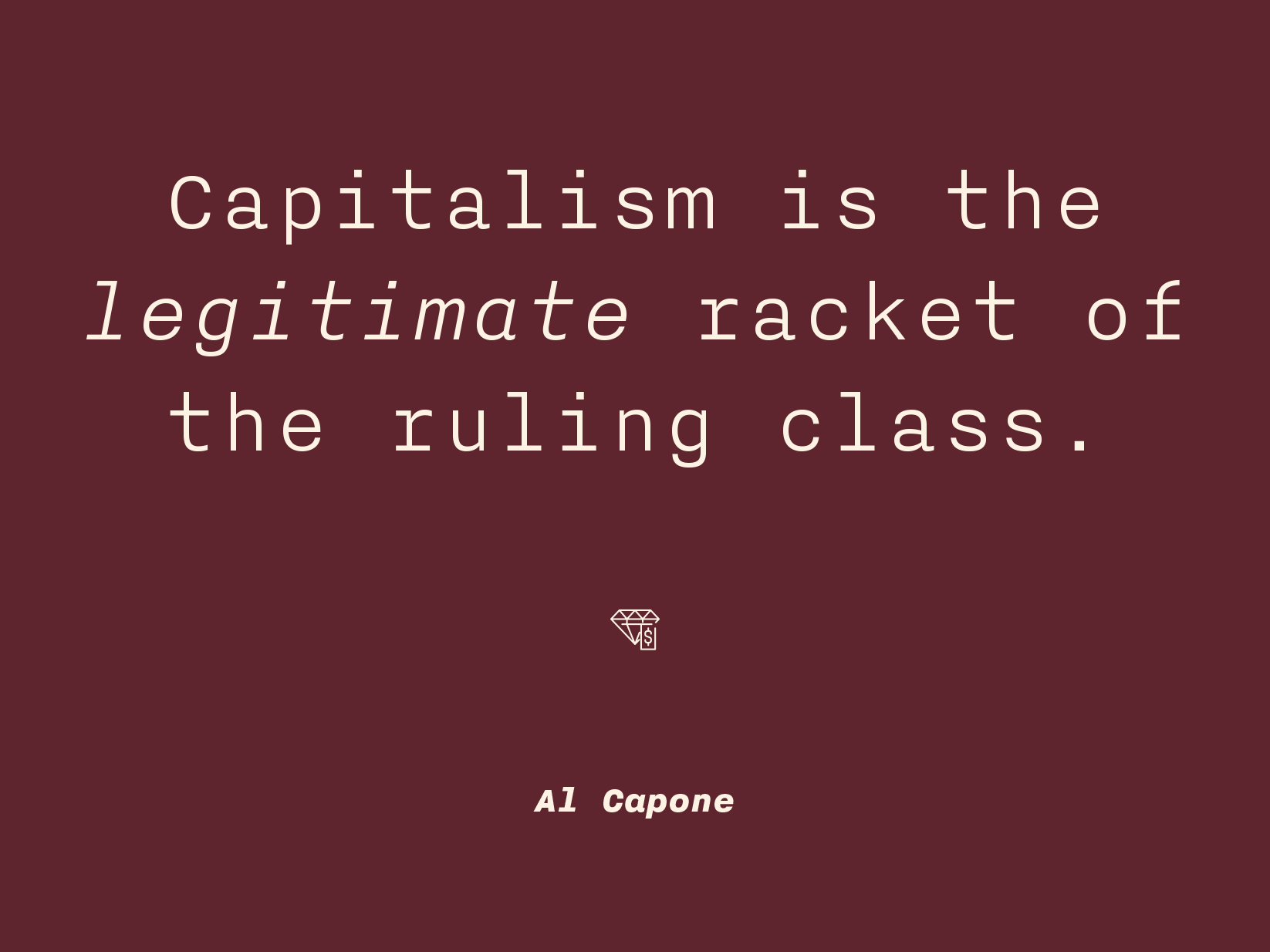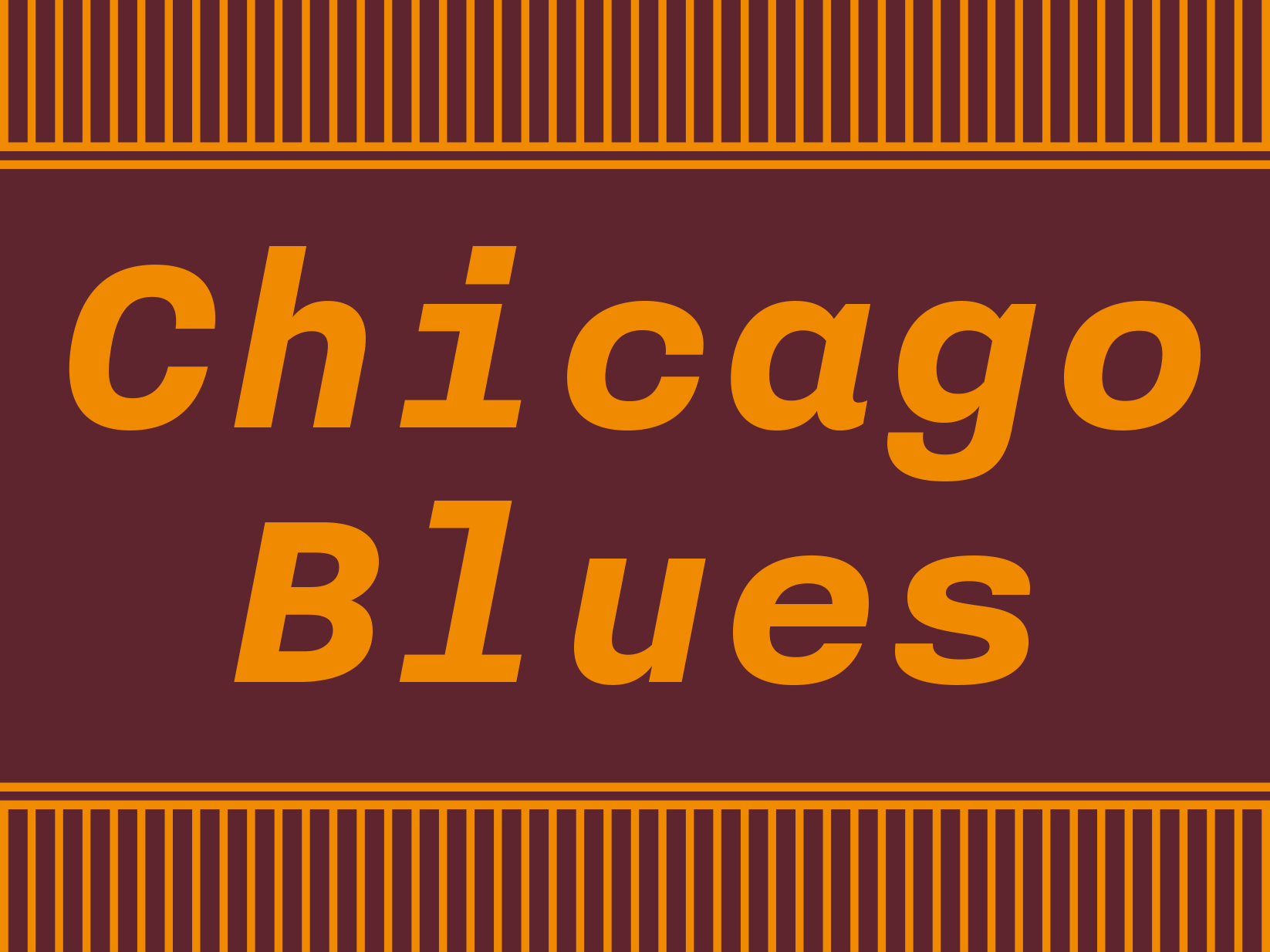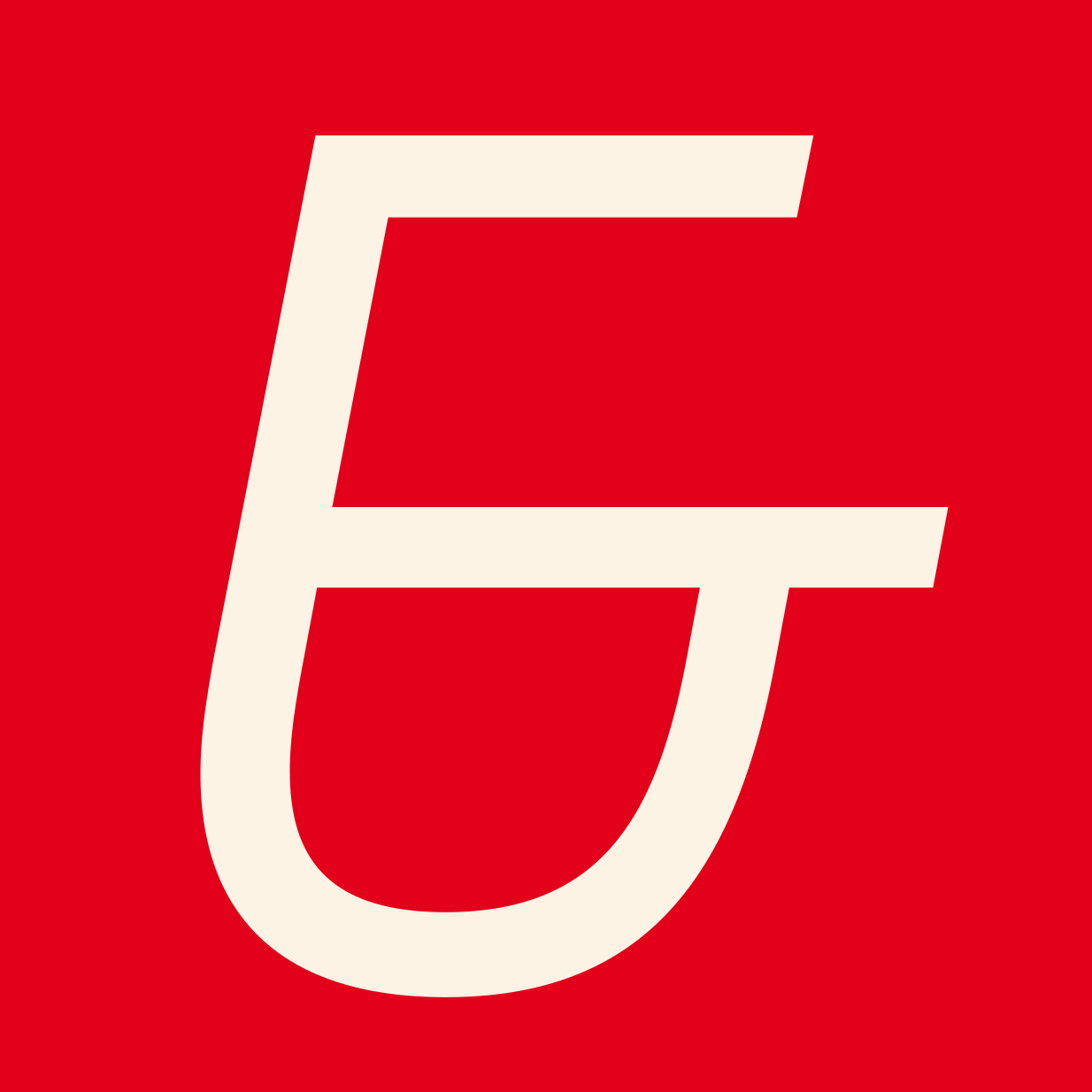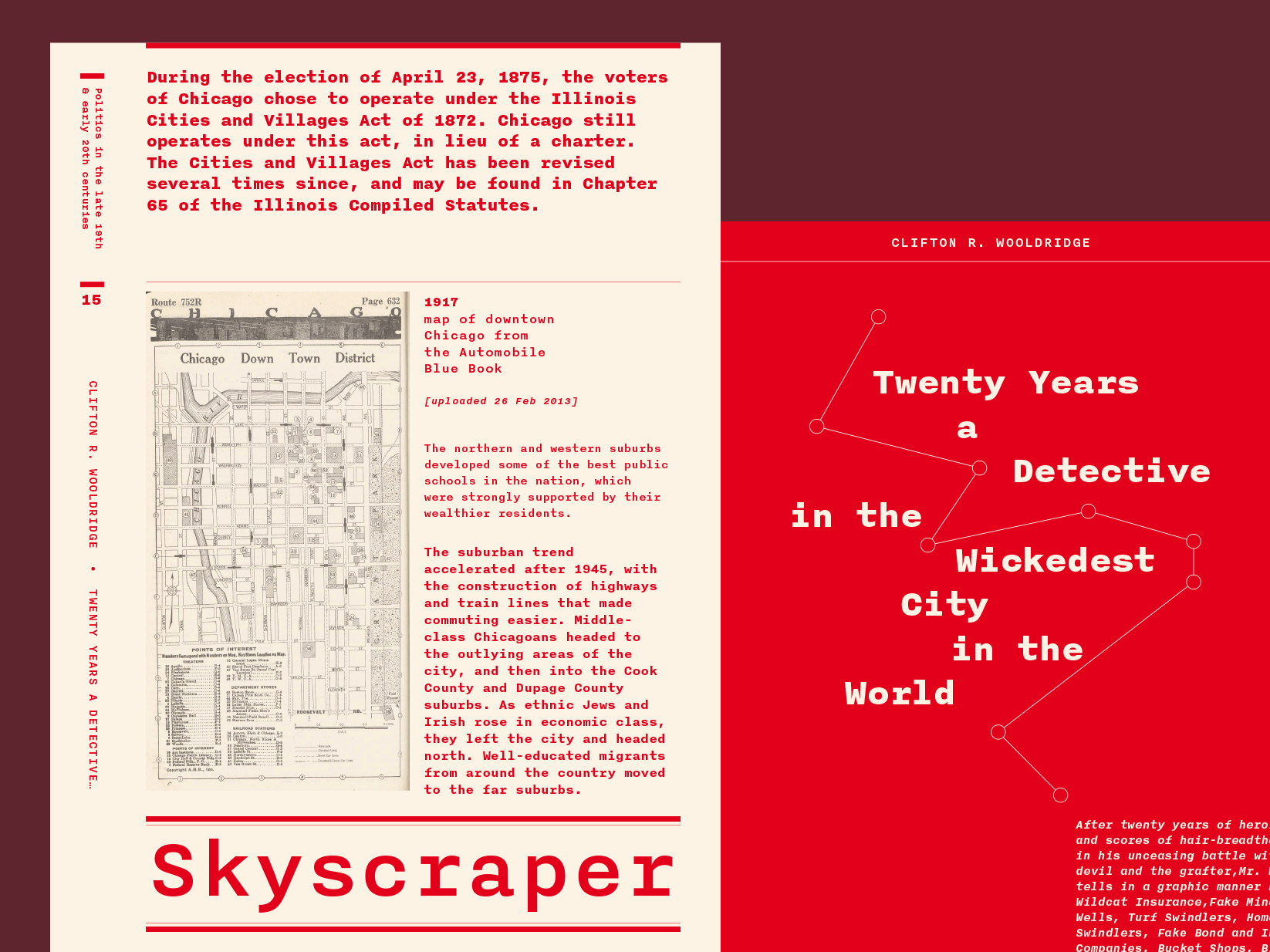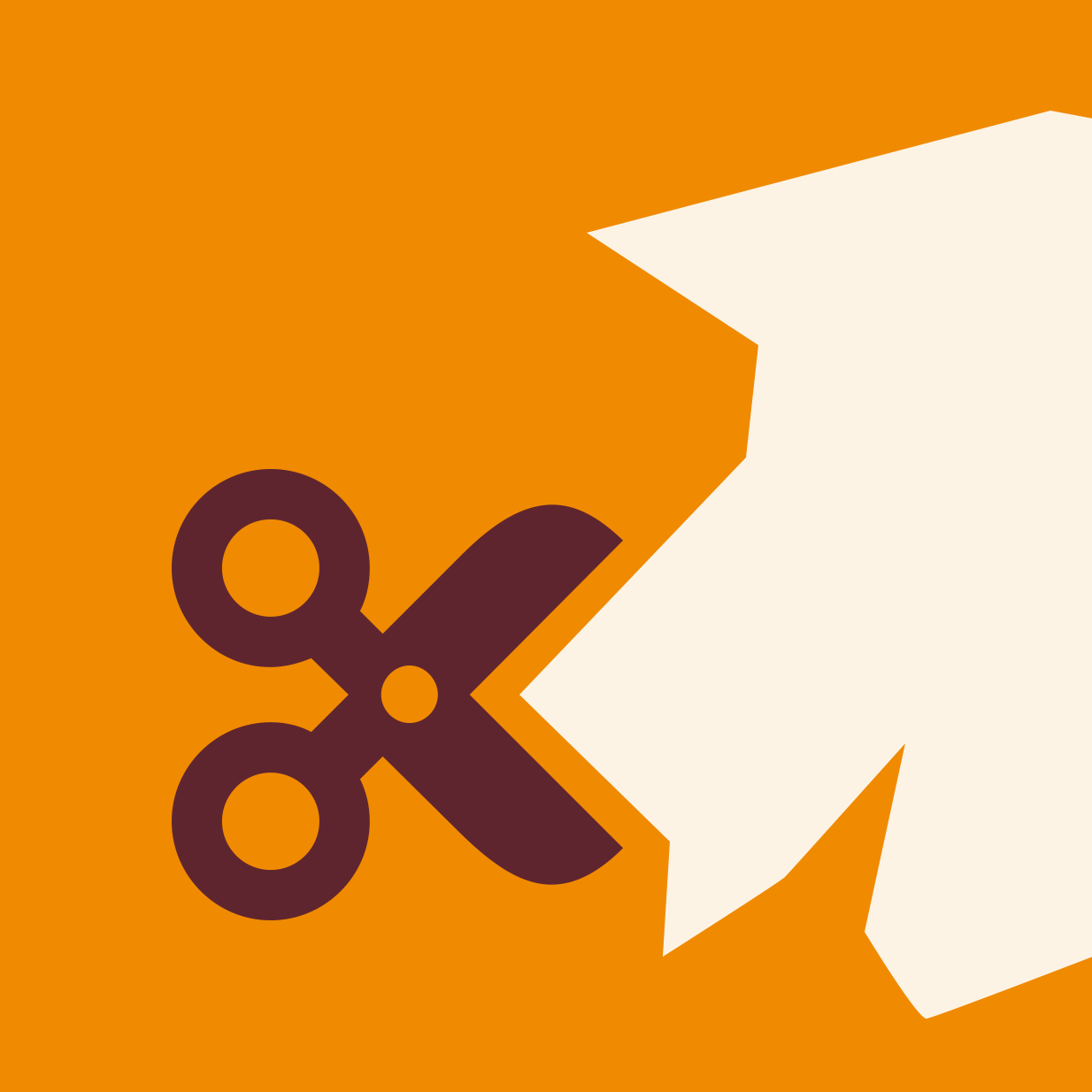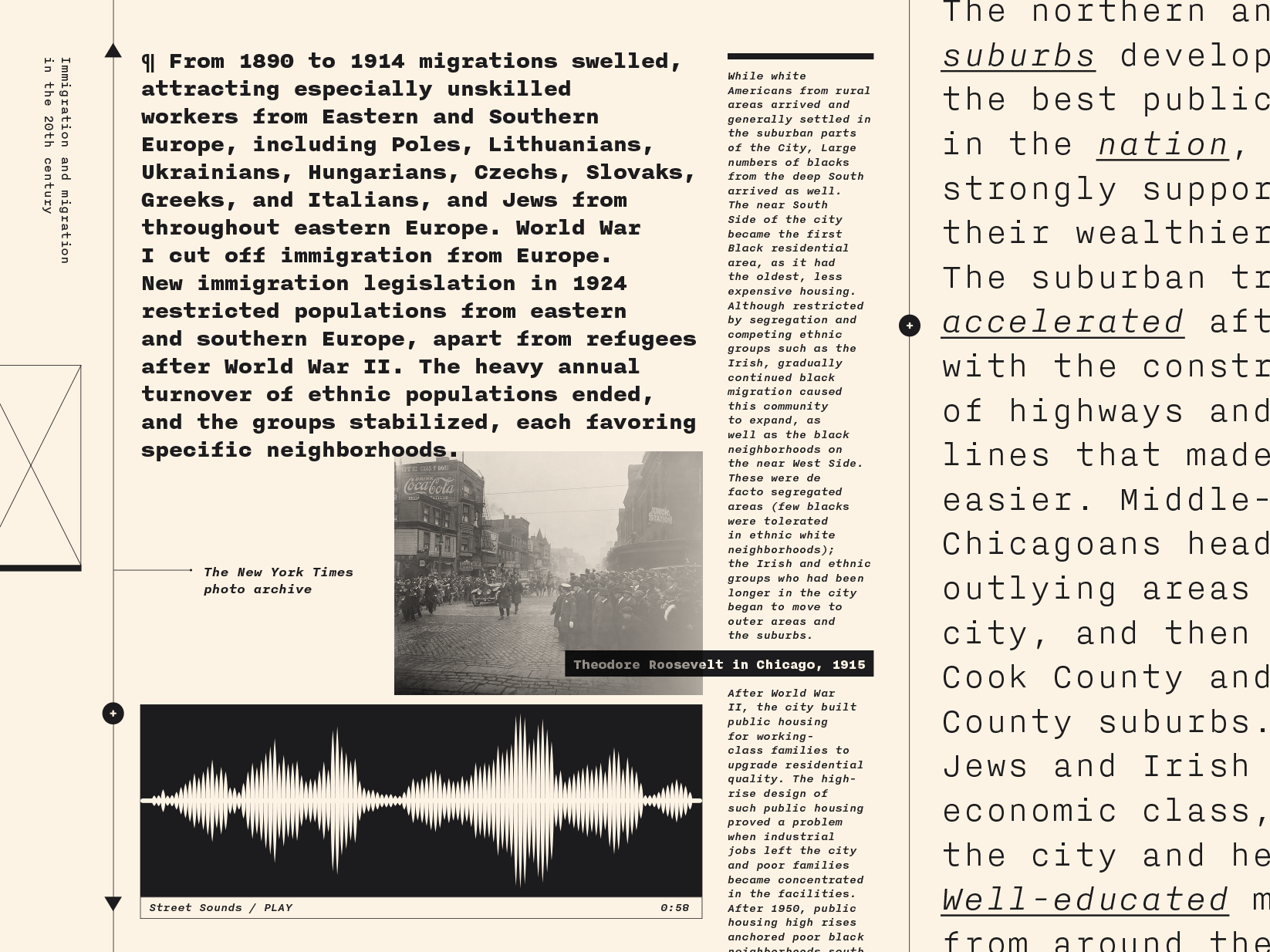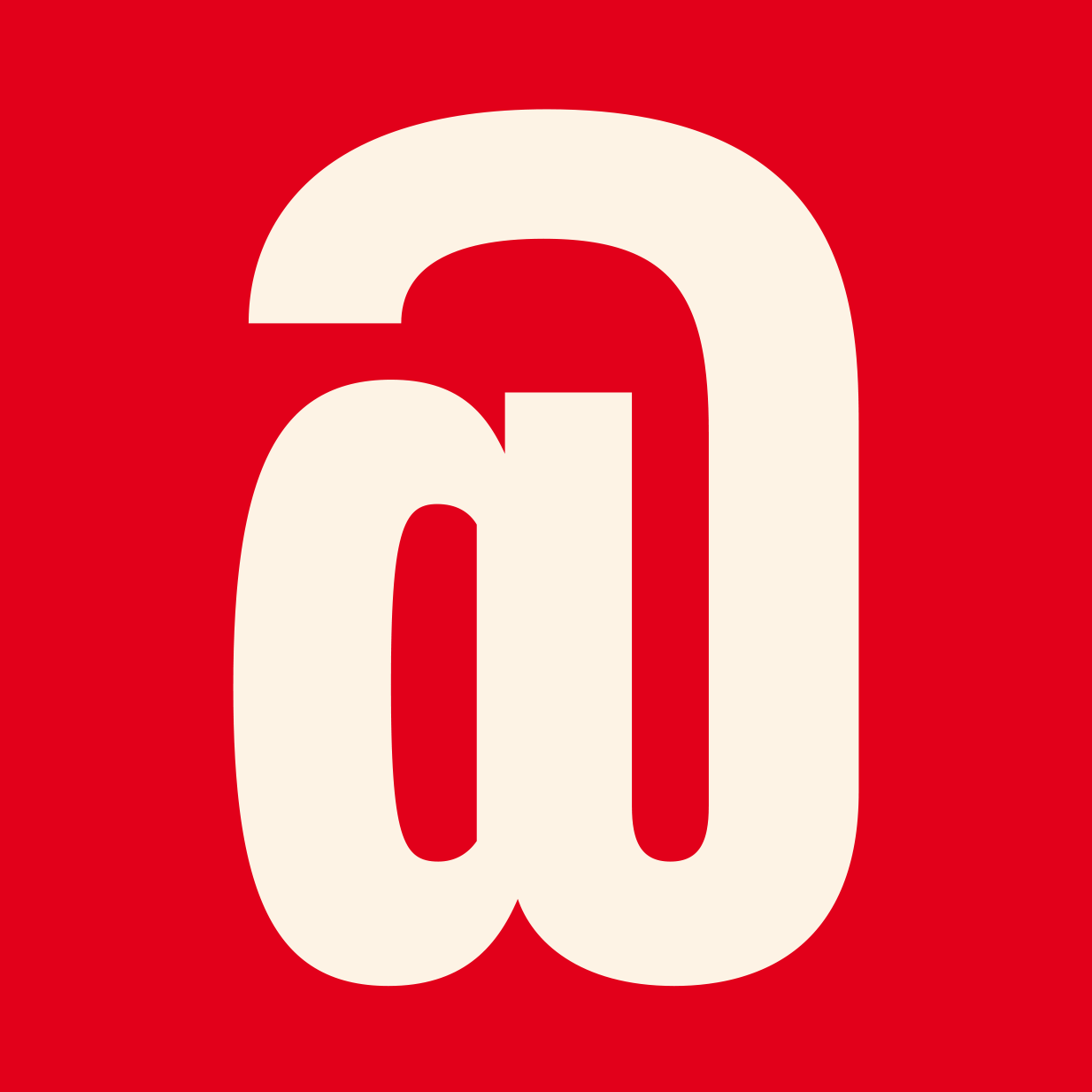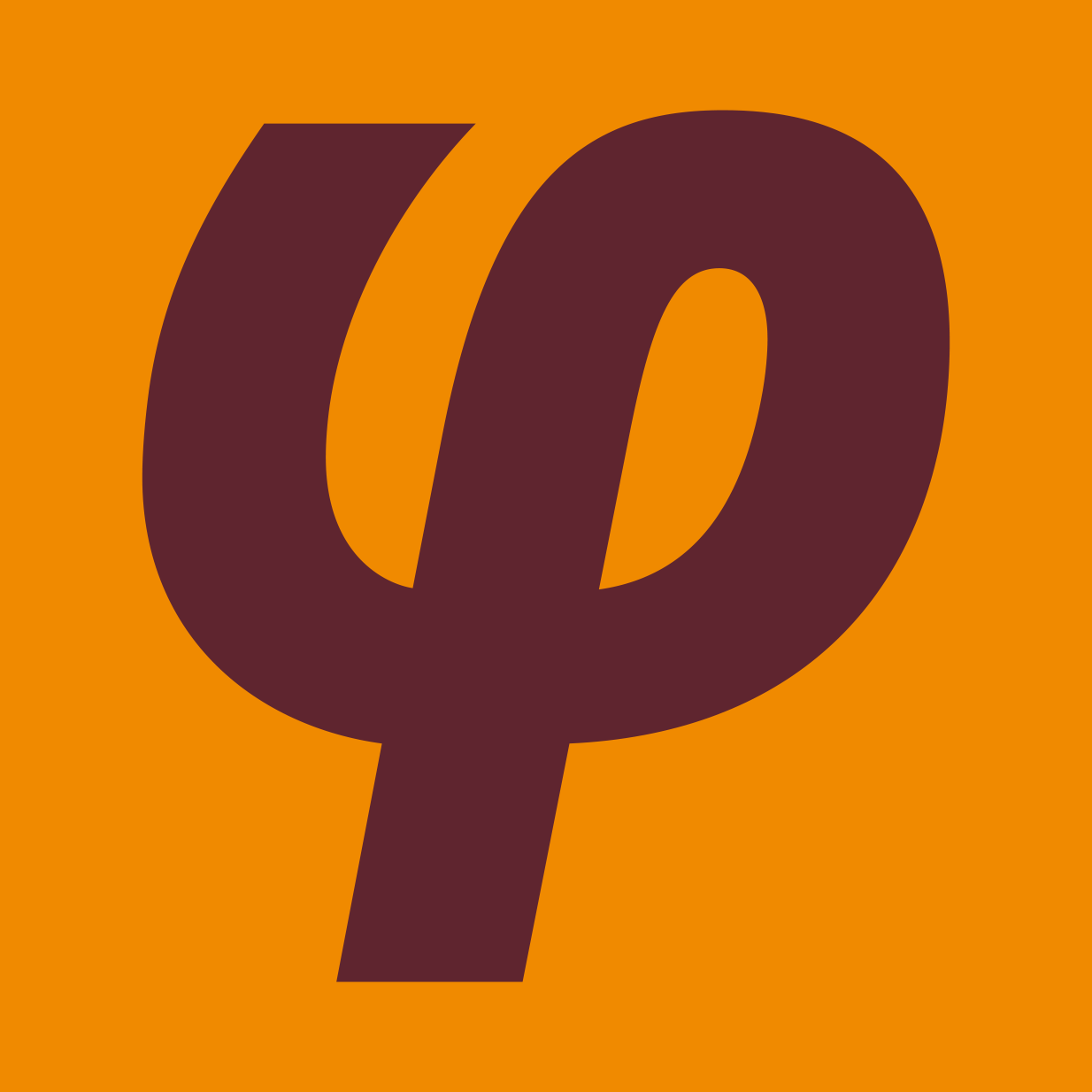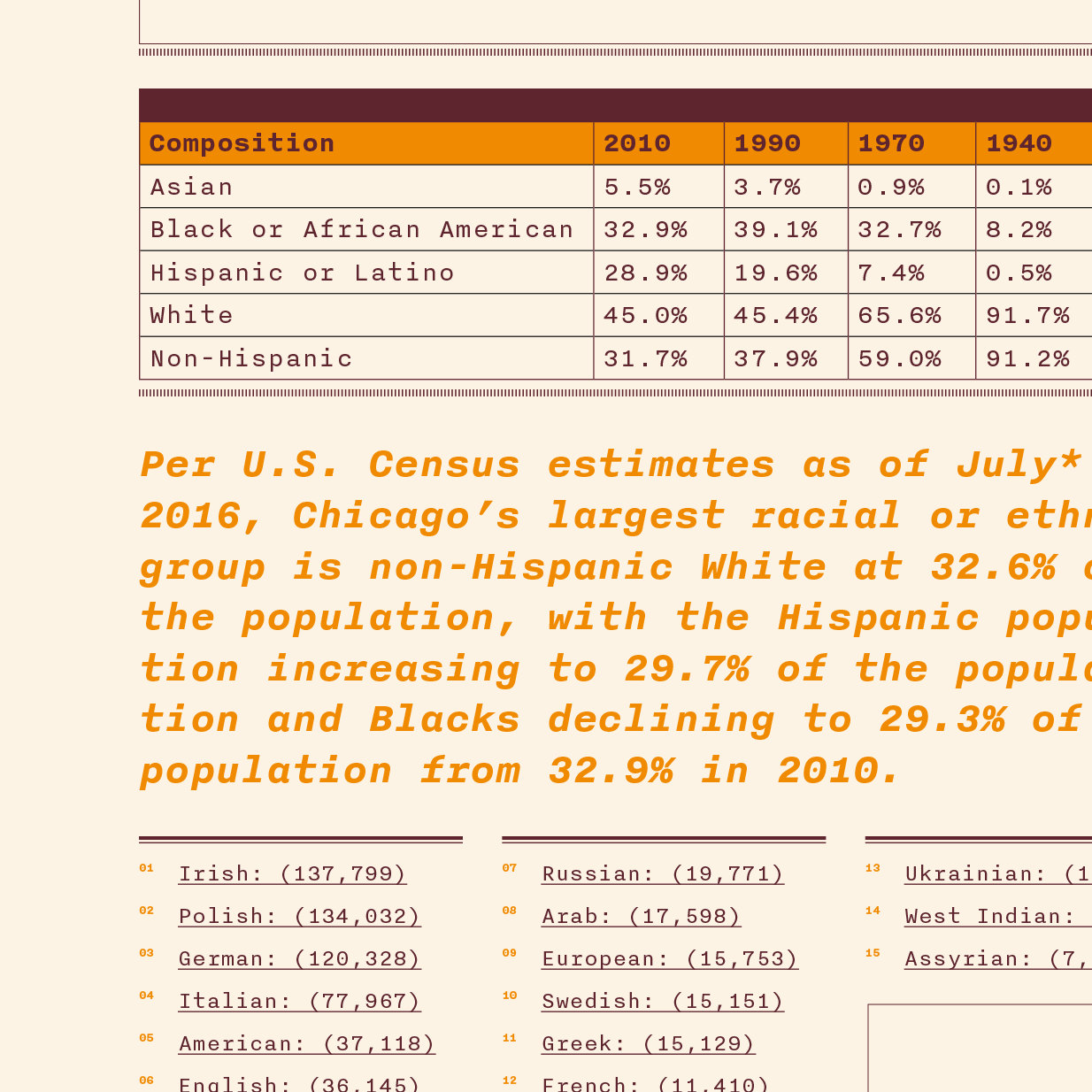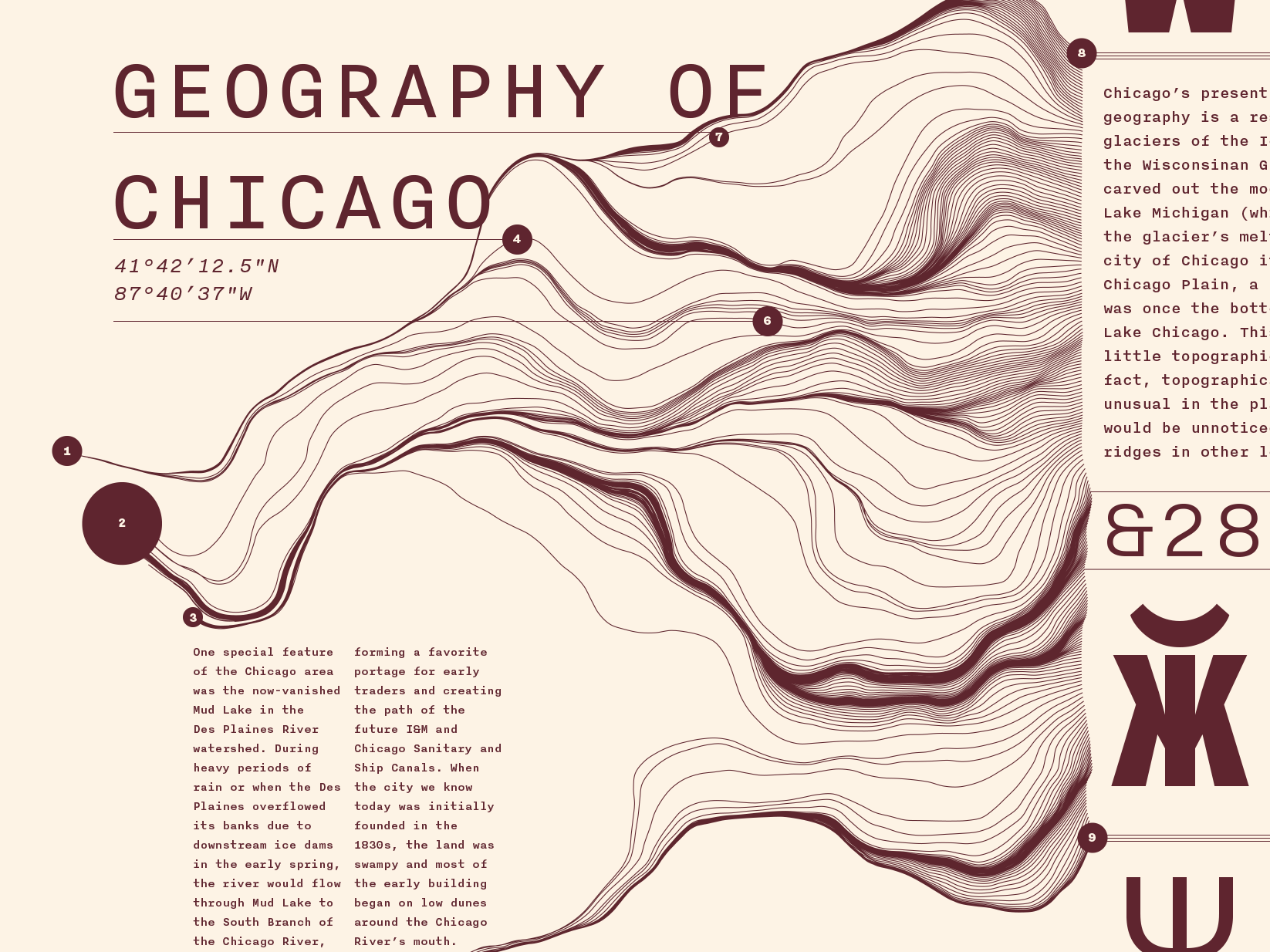
Nitti
Nitti is a monospaced typeface family in five weights that has its roots in the first sans-serif designs of the 19th century — the Grotesques. Originally a British invention, Grotesques gained massive popularity in mainland Europe and also became widespread in early 20th century USA where they were commonly referred to as ‘Gothic’. The quirky and often idiosyncratic shapes of these early English sans-serifs lend them the humanity and warmth still appreciated among many graphic designers today.
Nitti is named after Francesco Raffaele Nitto, better known as Frank ‘The Enforcer’ Nitti, one of the henchmen of Al Capone. The family is part of a bigger collection of Grotesque-inspired typefaces that also includes a poster version called Stanley and a proportional version called Nitti Grotesk.
Nitti has an very extensive character-set with Latin, Greek, Cyrillic glyphs that cover all European languages and Asian languages that use the Cyrillic script, plus Hebrew.
Designers
Pieter van Rosmalen
Yanek Iontef
2007–2016
Discretionary ligatures (dlig)